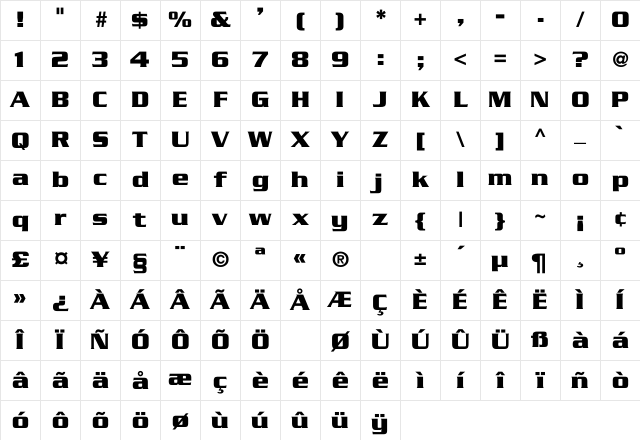
Serpent Regular
Design Context for Serpent
Serpent is a composed and adaptable typeface that performs quietly and consistently across a wide range of design contexts.